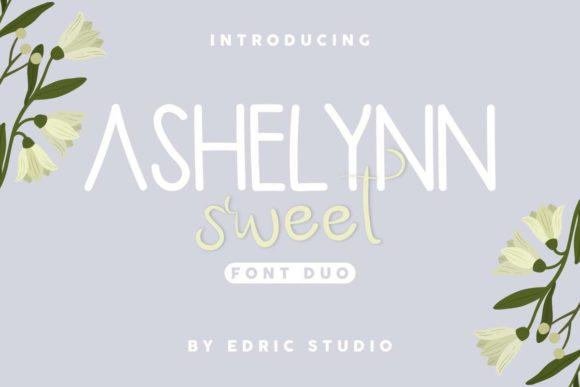
Discover the Perfect Pair: Ashleynn Duo Font
The world of typography is vast and diverse, offering a multitude of choices for designers seeking to make their mark. Among these, the Ashleynn Duo Font stands out as a beacon of versatility and elegance. This remarkable duo combines a script font with a sans serif, creating a match made in heaven that can elevate any design project. In this article, we’ll explore the unique qualities of the Ashleynn Duo Font and how it can add a playful yet sophisticated touch to your designs.
What is Ashleynn Duo Font?
Ashleynn Duo Font is a carefully curated pair of fonts designed to work in harmony. The duo consists of a beautiful script font and a clean, modern sans serif font. This combination allows designers to create stunning visual hierarchies and add depth to their work. The script font brings a touch of elegance and personality, while the sans serif provides clarity and readability.
The Benefits of Using Ashleynn Duo Font in Your Design
The Ashleynn Duo Font offers numerous benefits for designers. Here are a few reasons why this font duo is a must-have in your typography arsenal:
- Versatility: The combination of a script and a sans serif font makes Ashleynn Duo incredibly versatile. It can be used across various design applications, from branding and packaging to web design and print materials.
- Elegant and Playful: The script font adds a touch of elegance and sophistication, while the sans serif provides a playful and modern feel. This balance makes it perfect for designs that need to convey both luxury and approachability.
- Readability: The sans serif font in the duo is designed for optimal readability, making it ideal for body text and headlines. The script font, with its elegant flair, is perfect for adding emphasis or creating eye-catching titles.
- Unique Aesthetic: The pairing of these two fonts creates a unique aesthetic that can set your designs apart. The contrast between the fluid lines of the script and the clean geometry of the sans serif creates visual interest and dynamism.
Practical Applications of Ashleynn Duo Font
The versatility of Ashleynn Duo Font means it can be applied in a wide range of design projects. Here are some practical applications:
- Branding: Use the Ashleynn Duo Font to create a memorable brand identity. The script font can add a personal touch to your logo, while the sans serif can be used for taglines or descriptions.
- Web Design: This font duo is perfect for web design, offering a professional yet approachable feel. The sans serif font ensures readability on digital screens, while the script font can highlight key sections or calls to action.
- Print Materials: From brochures and flyers to business cards and posters, Ashleynn Duo Font can add a touch of elegance and modernity to any print material.
- Packaging: Make your product packaging stand out with the unique combination of Ashleynn Duo Font. The script font can add a luxurious feel, while the sans serif provides essential product information in a clear and readable format.
Design Tips for Using Ashleynn Duo Font
To make the most of Ashleynn Duo Font, consider the following design tips:
- Contrast is Key: Play with the contrast between the script and sans serif fonts to create visual hierarchy. Use the script font for headings and the sans serif for body text, or vice versa, depending on your design needs.
- Consistency: While the fonts are designed to work together, ensure consistency in your design by using them thoughtfully. Overusing either font can detract from the overall impact.
- Color Considerations: Choose colors that complement both fonts. Neutral colors can work well with the sans serif, while the script font can handle bolder, more vibrant hues.
- Experiment with Sizes: Don’t be afraid to experiment with different font sizes to emphasize certain elements of your design. The contrast in sizes can add dynamism and guide the viewer’s eye.
Ashleynn Duo Font offers a refreshing combination of elegance and playfulness, making it an excellent choice for designers looking to elevate their projects. The pairing of a sophisticated script font with a clean sans serif font provides endless possibilities for creative expression. Whether you’re working on branding, web design, or print materials, Ashleynn Duo Font can help you achieve a balanced and visually appealing design. Embrace the versatility of this font duo and let your imagination run wild.